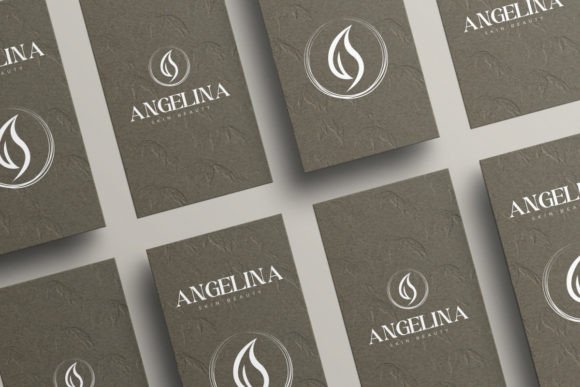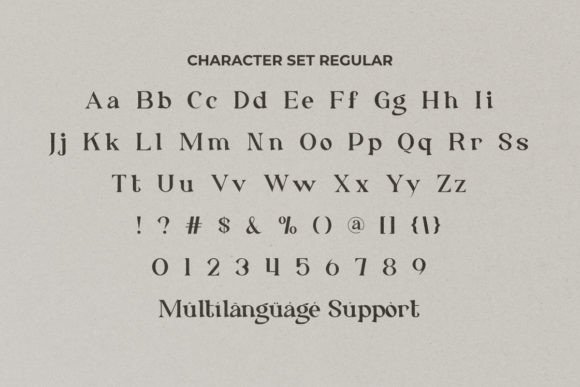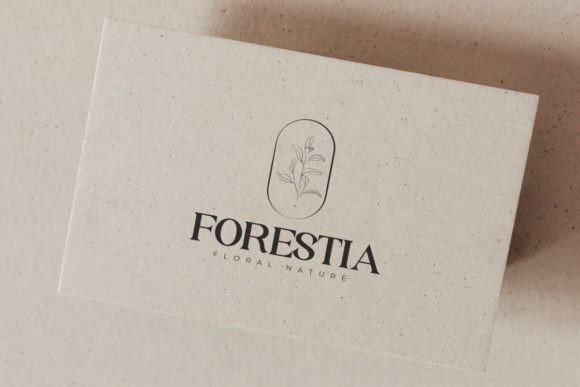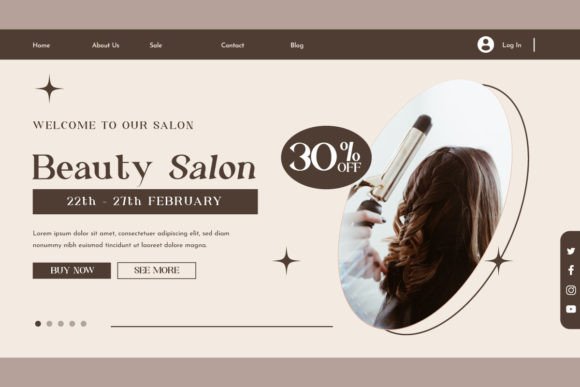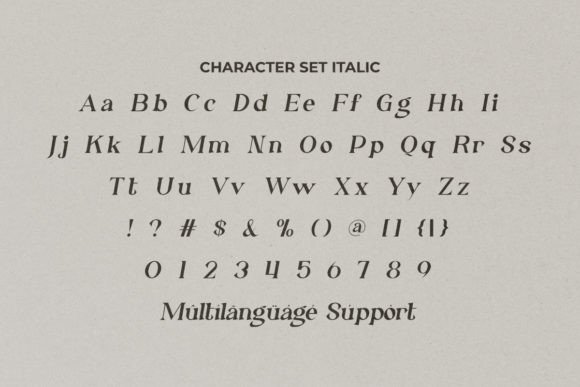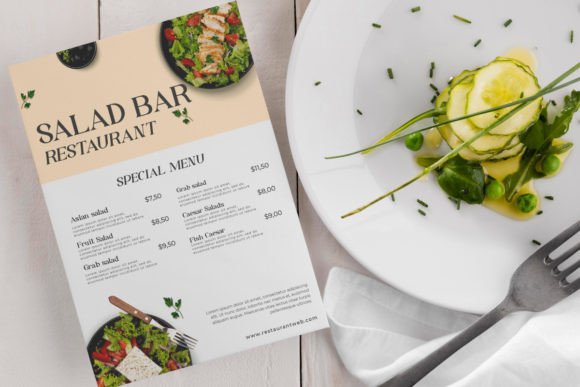
Introducing Extraordinaire Font: Elevate Your Designs with Elegance
In the world of typography, a font can make or break the aesthetic of a design project. For designers and crafters seeking a stylish and modern serif font that exudes elegance, look no further than Extraordinaire Font. Designed by NoahType, this versatile font is perfect for a wide range of applications, from casual to sophisticated.
What is Extraordinaire Font?
Extraordinaire Font is a contemporary serif font that boasts two distinct styles: Regular and Italic. This stylish font features elegant lines that can elevate any design project, making it an excellent choice for various industries. Whether you’re working on a branding project, creating a logo, or designing marketing materials, Extraordinaire Font is sure to impress.
Key Features of Extraordinaire Font
- Modern Serif Design: Extraordinaire Font features a sleek and modern serif design that adds a touch of sophistication to any project.
- Two Styles: The font comes in two styles: Regular and Italic, providing flexibility and versatility for designers.
- Elegant Lines: The font’s elegant lines make it perfect for designs that require a touch of class and refinement.
- Highly Versatile: Extraordinaire Font can be used in a wide range of projects, from casual to stylish, making it an excellent addition to any designer’s toolkit.
Industries That Can Benefit from Extraordinaire Font
Extraordinaire Font is an excellent choice for various industries, including:
- Artist: Add a touch of elegance to your artwork with Extraordinaire Font.
- Café: Create a sophisticated brand identity for your café with this stylish font.
- Boutique: Elevate your boutique’s branding with Extraordinaire Font’s elegant lines.
- Cosmetic: Use Extraordinaire Font to create a luxurious brand identity for your cosmetic products.
- Event Tenant: Make a statement with Extraordinaire Font at your next event.
- Fashion: Add a touch of sophistication to your fashion brand with this stylish font.
- Florist: Create beautiful and elegant branding for your florist business.
- Handicrafts: Use Extraordinaire Font to add a touch of elegance to your handicraft products.
- Photography: Elevate your photography branding with Extraordinaire Font.
- Printing: Use Extraordinaire Font for your printing projects, such as business cards, brochures, and more.
- Publishing: Create a sophisticated brand identity for your publishing company with this stylish font.
- Real Estate: Use Extraordinaire Font to create a luxurious brand identity for your real estate business.
- Restaurant: Elevate your restaurant’s branding with Extraordinaire Font.
- Spa Salon: Create a relaxing and elegant brand identity for your spa or salon.
Why Choose Extraordinaire Font?
- Unique Design: Extraordinaire Font features a unique and stylish design that sets it apart from other fonts.
- Highly Versatile: This font can be used in a wide range of projects, making it an excellent addition to any designer’s toolkit.
- Elegant Lines: The font’s elegant lines make it perfect for designs that require a touch of class and refinement.
- Easy to Read: Extraordinaire Font is highly legible, making it perfect for body text and headlines.
In conclusion, Extraordinaire Font is an excellent choice for designers and crafters seeking a stylish and modern serif font. With its elegant lines, highly versatile design, and wide range of applications, this font is sure to elevate any design project. Whether you’re working on a branding project, creating a logo, or designing marketing materials, Extraordinaire Font is the perfect choice.